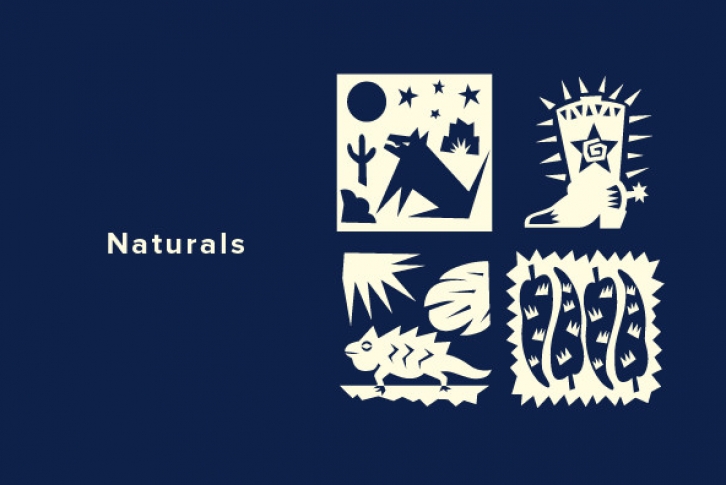
Hugh Whyte, best known for his geometric computer graphic images, created these illustrations with a natural theme in mind. These designs are a 'natural' in any project where an outdoor look is desired such as travel brochures, corporate image pieces, logos, menus, food packaging and posters. 'Naturals' feature many environmental images such as animals, vegetables, trees, fruits and American cowboy illustrations.